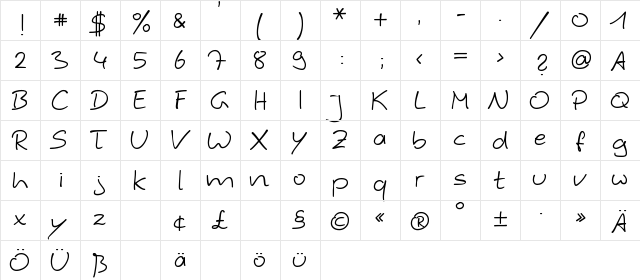
Hybi4 Regular
Design Context for Hybi4 Typeface
Hybi4 takes a measured approach to typography — its balanced proportions and neutral character make it a reliable workhorse for both digital and print work.